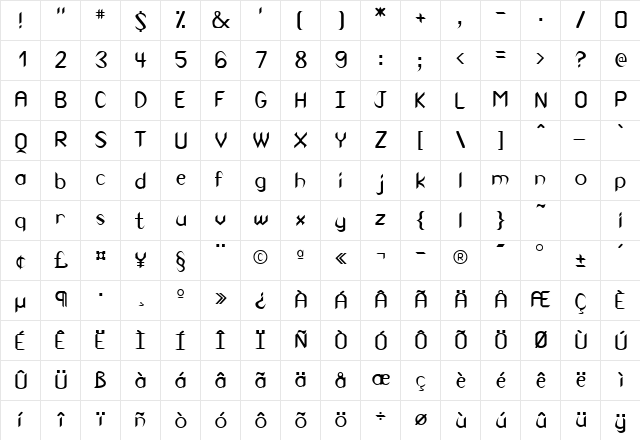
Canaith.fog fog
Canaith.fog offers clean, dependable letterforms without strong stylistic allegiance, making it a practical choice for designers who need flexibility.